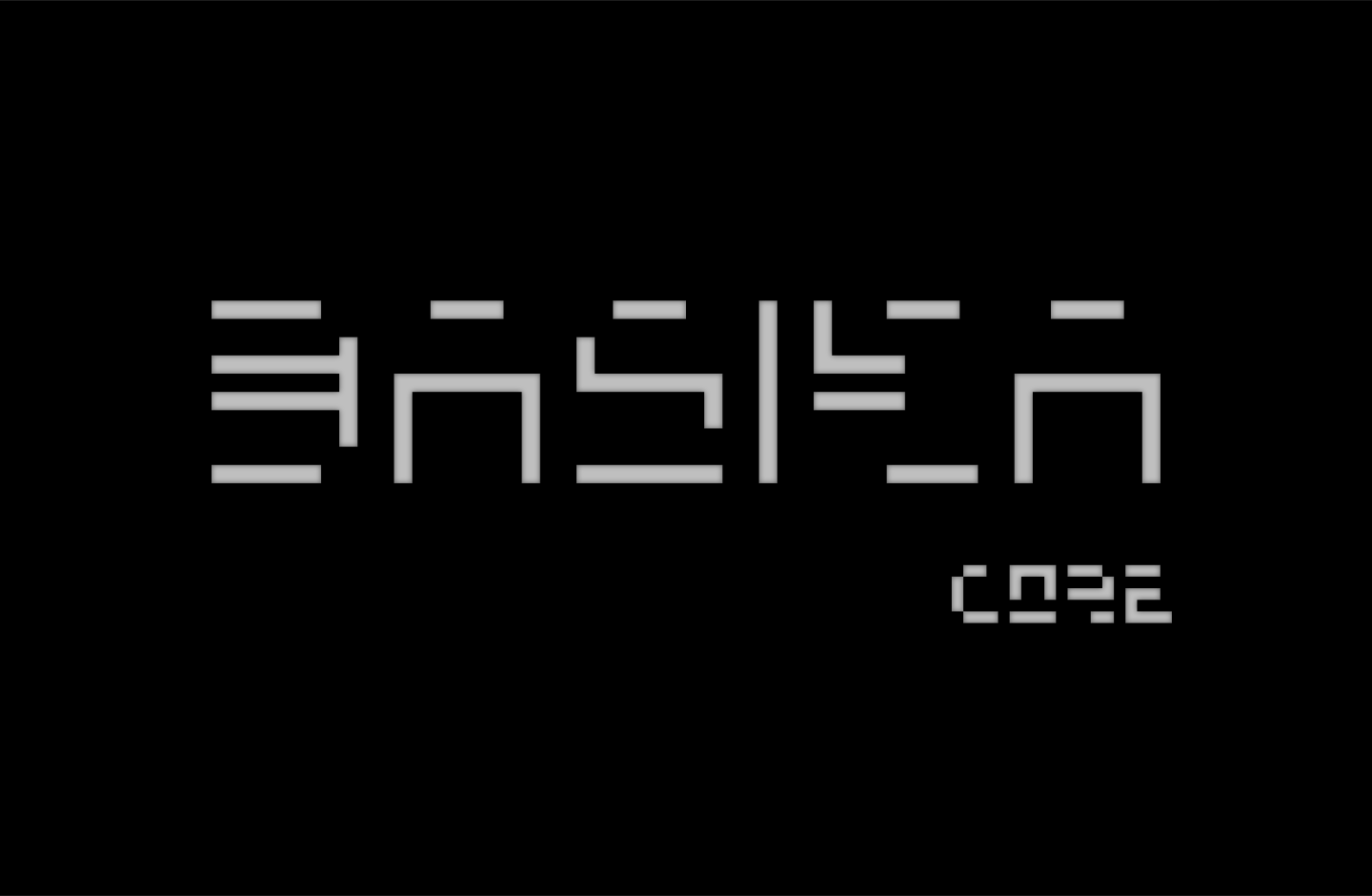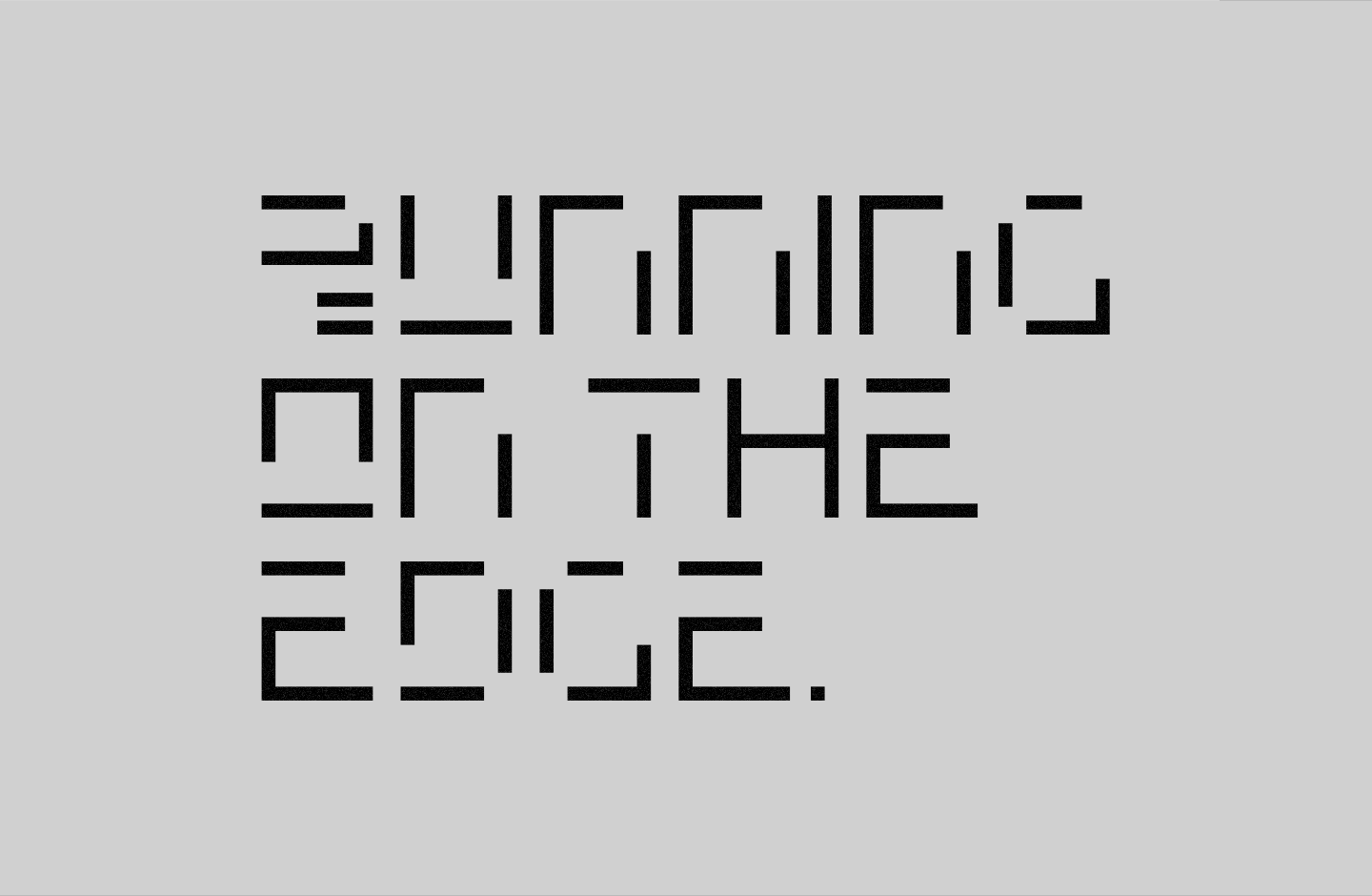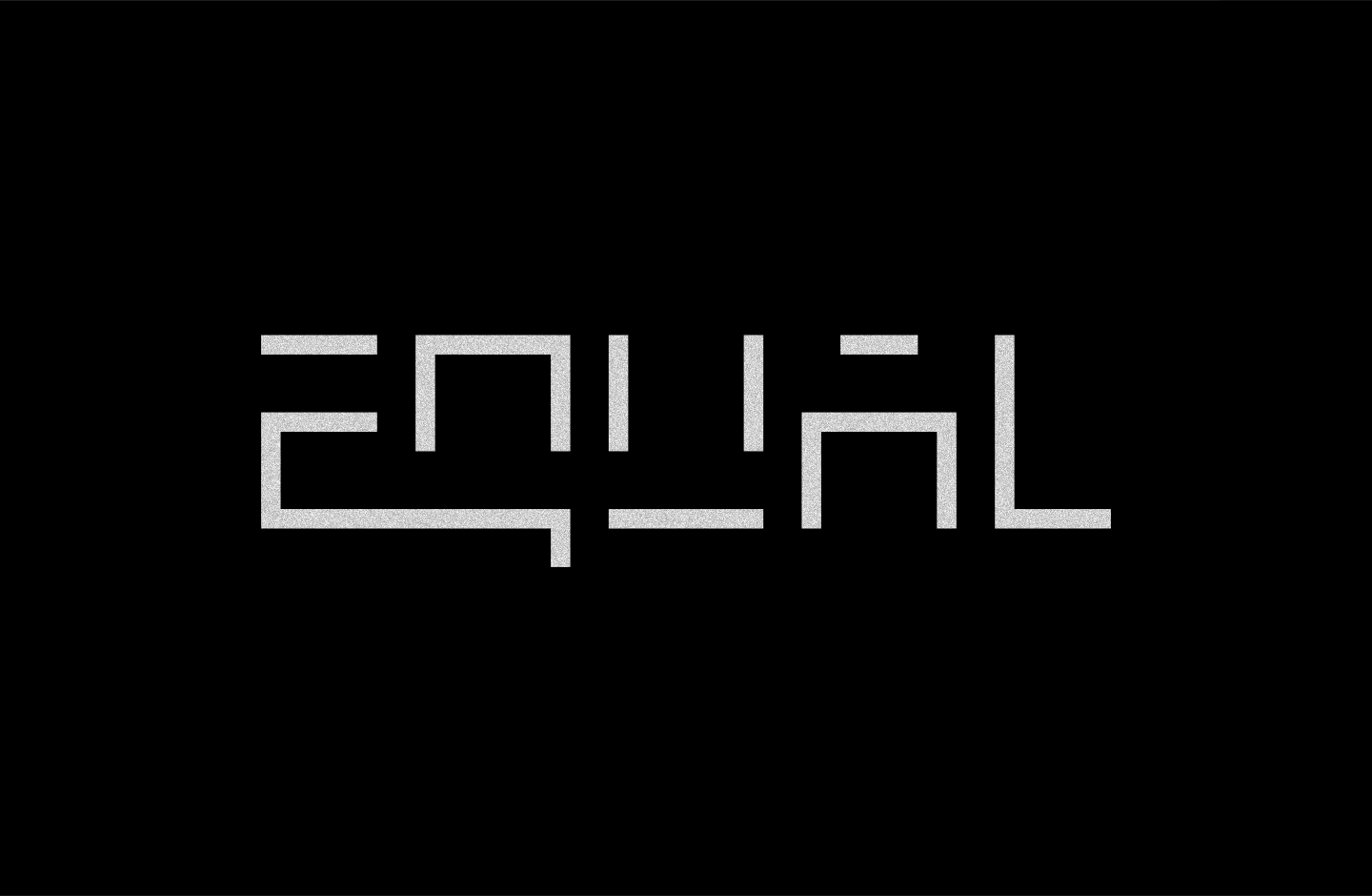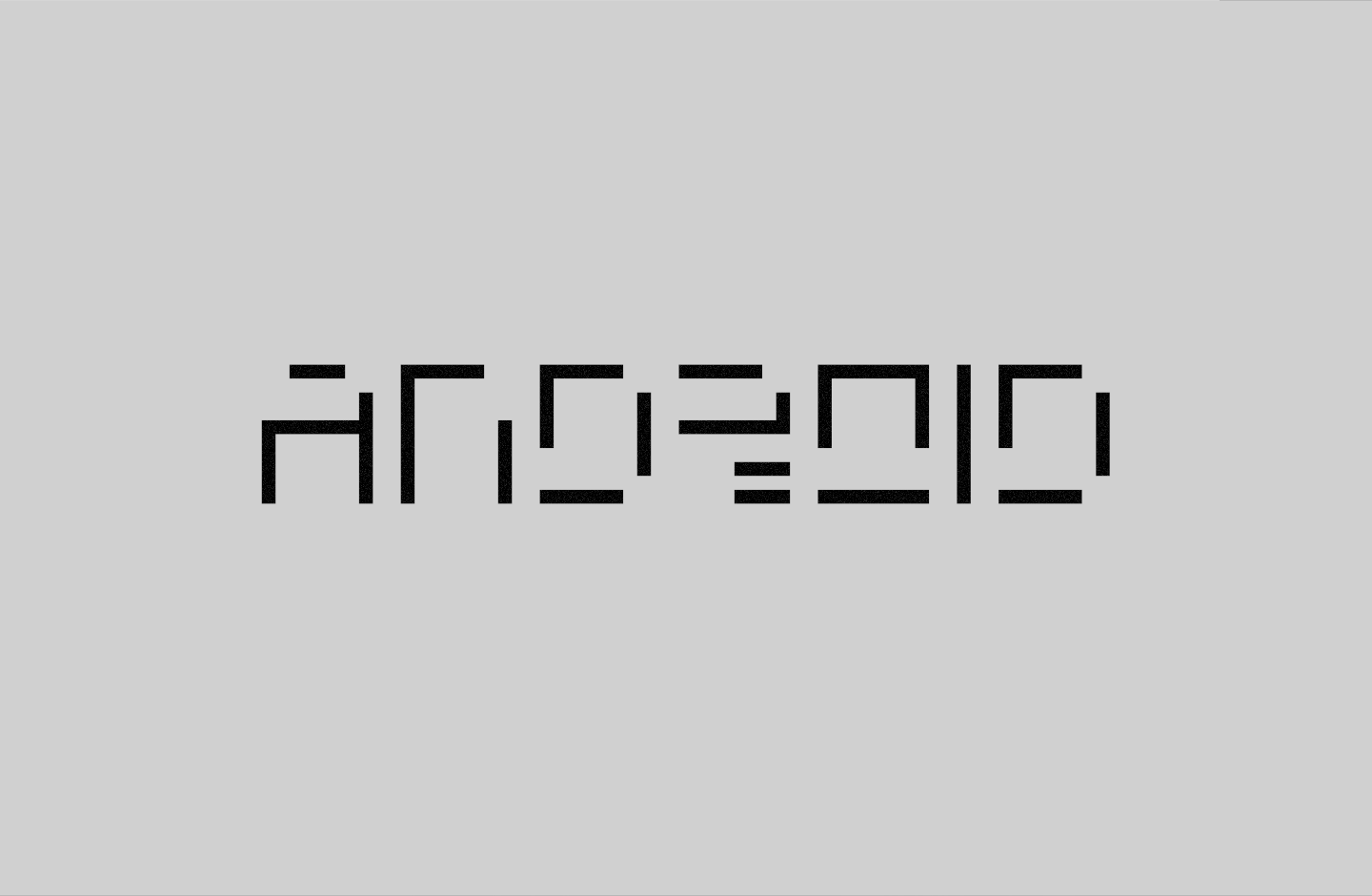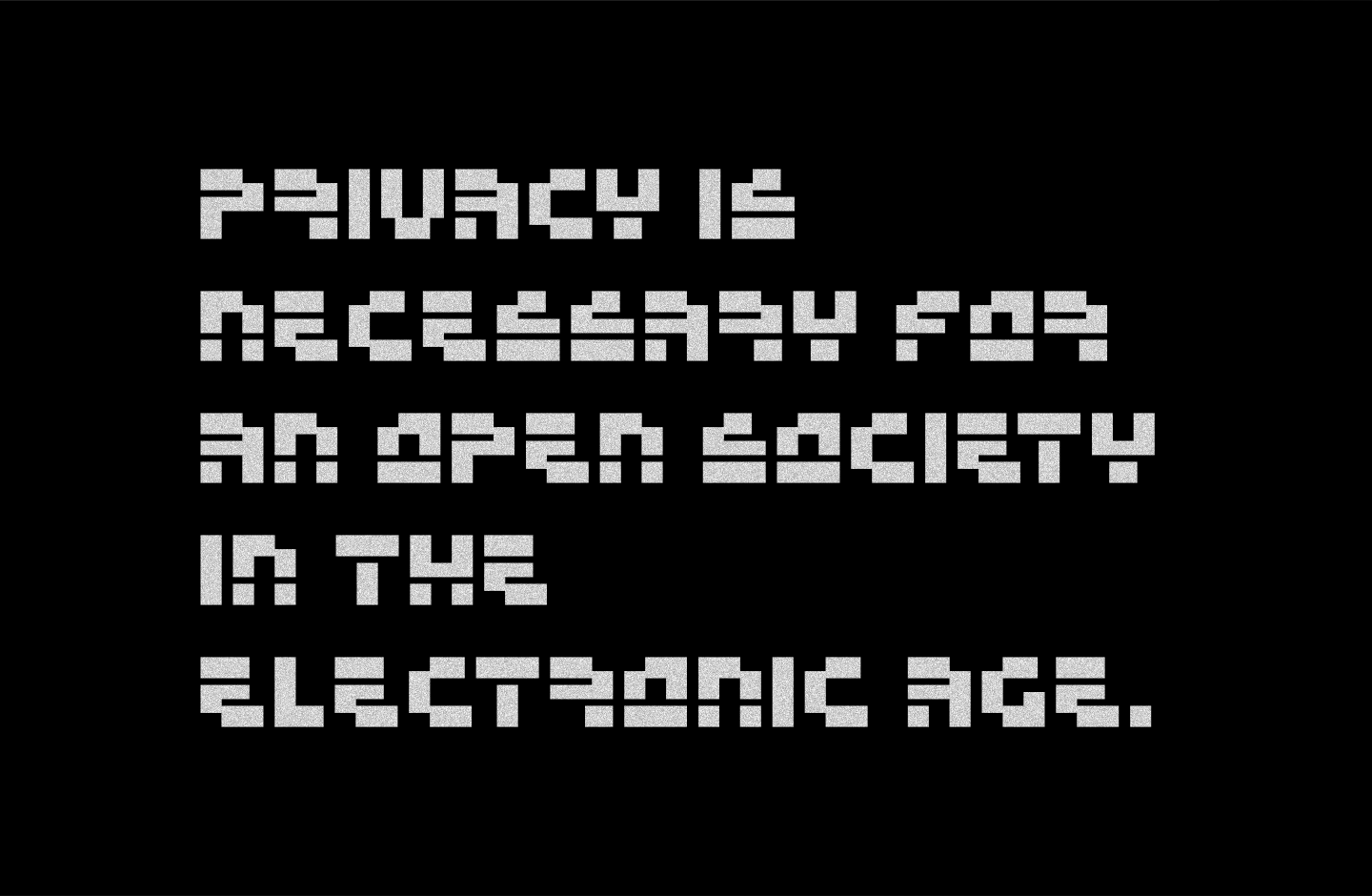
Basika Core
Font Family by Sogari Design
Basika is a proto-typeface, a bridge from the past into the future of experimental typography. A powerful communication tool for creators who like to push the boundaries of design. The Core edition reveals Basika's essence, showcasing its true nature.